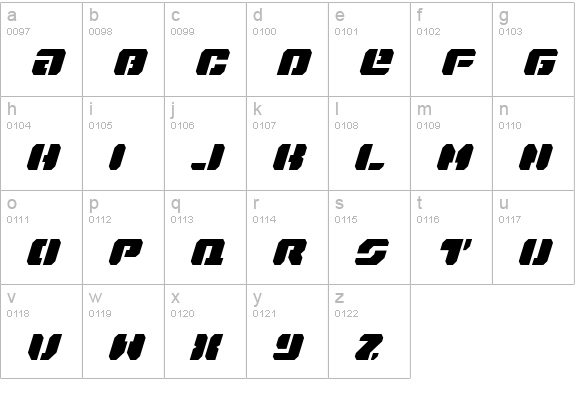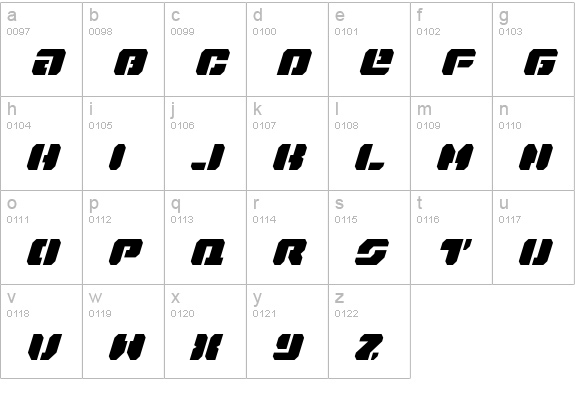
Dan Stargate Condensed Italic is a distinctive, condensed-width, italic variant in the Dan typeface family \xE2\x80\x94 well suited to design and typography projects.
Dan Stargate Condensed Italic font is a sleek and modern typeface that exudes elegance and sophistication. Its condensed italic style adds a touch of flair to any design project, making it perfect for creating eye-catching headlines or stylish branding materials. This font is not only visually appealing but also versatile, making it suitable for a wide range of design applications. Whether you're working on a print project, web design, or branding, Dan Stargate Condensed Italic font will elevate your work to the next level. Best of all, this font is available for free download at FontsMarket.com. So, you can easily add this stylish typeface to your font collection without any cost. Don't miss out on the opportunity to enhance your designs with the modern and sophisticated Dan Stargate Condensed Italic font.